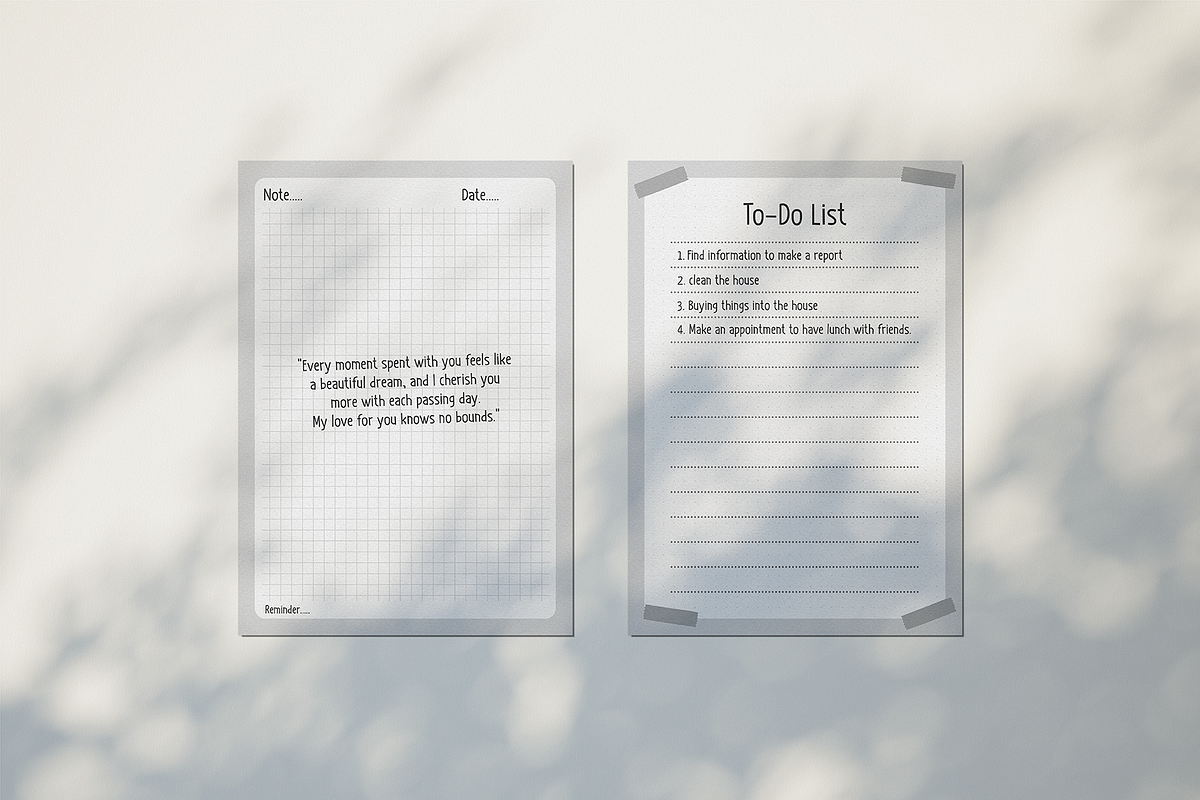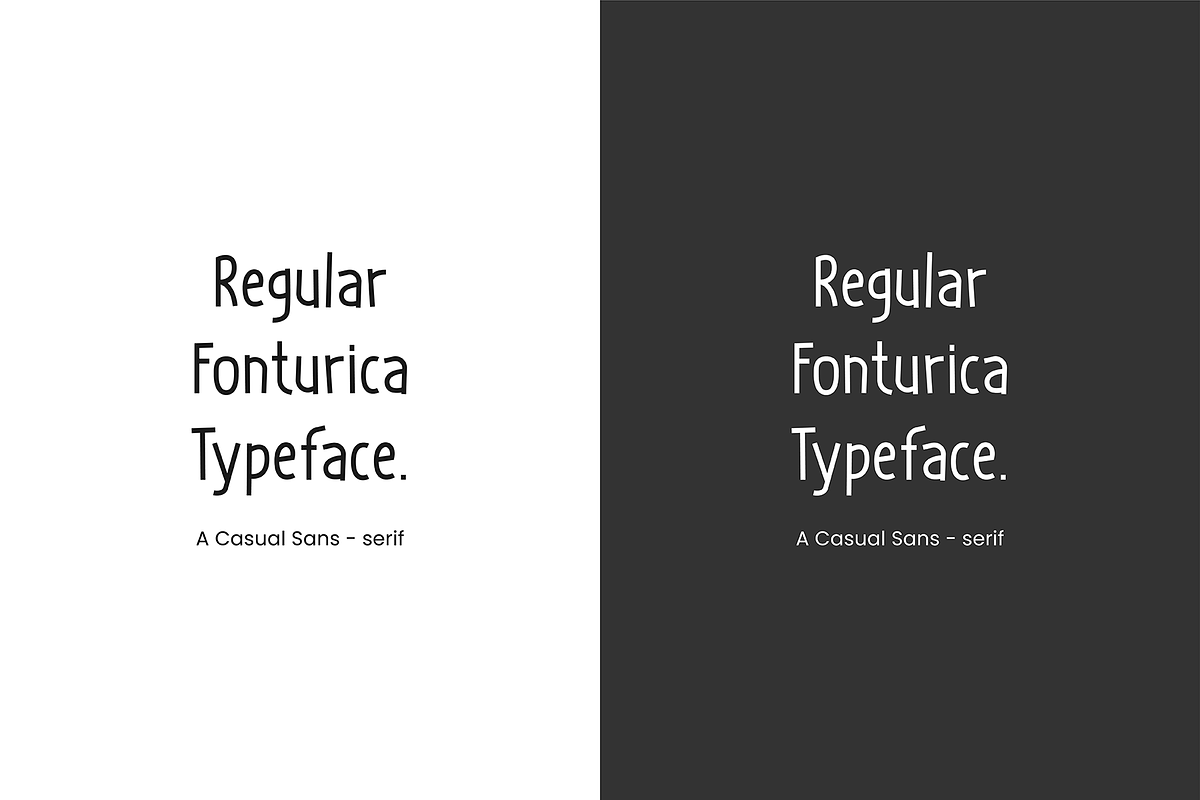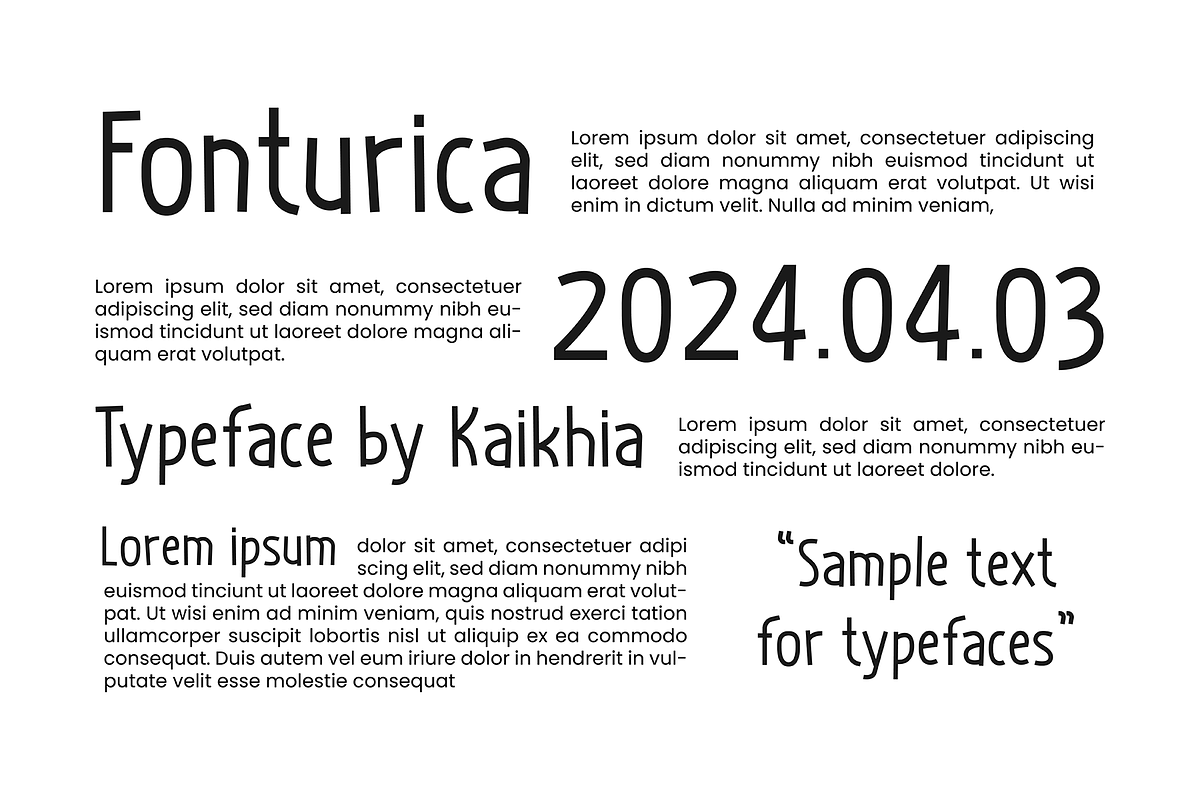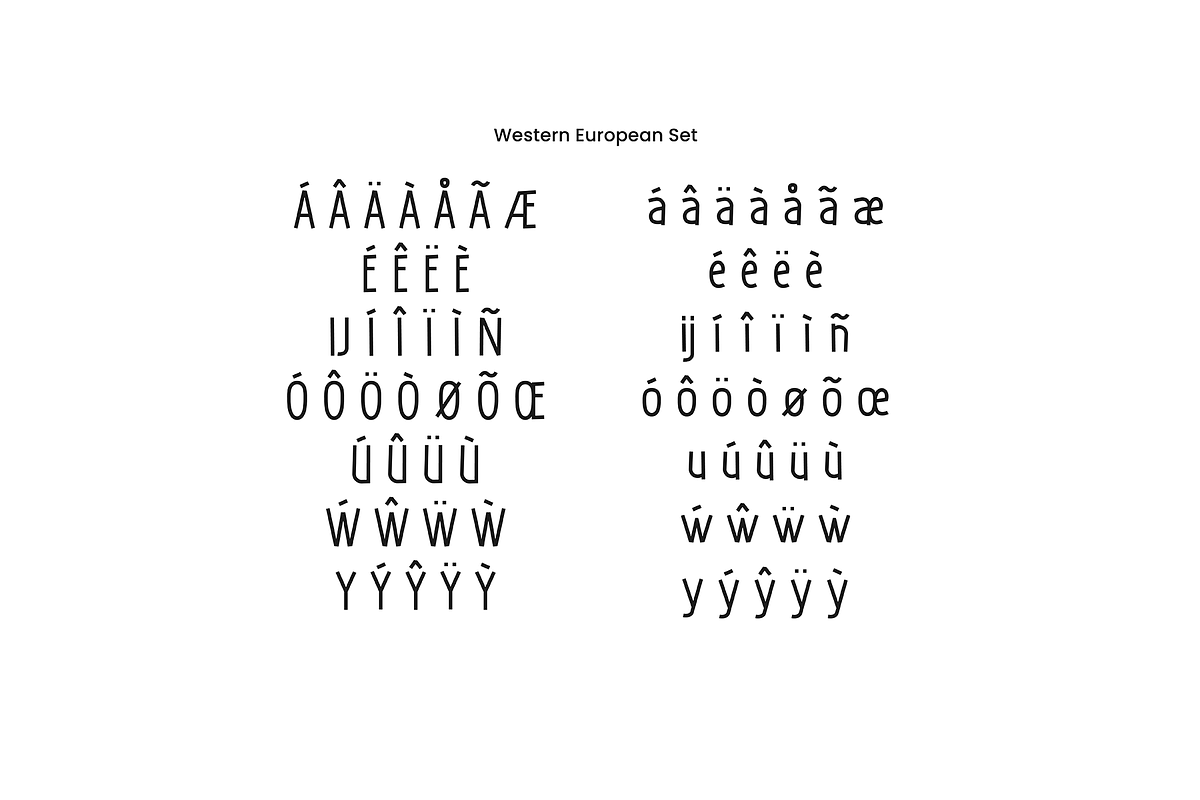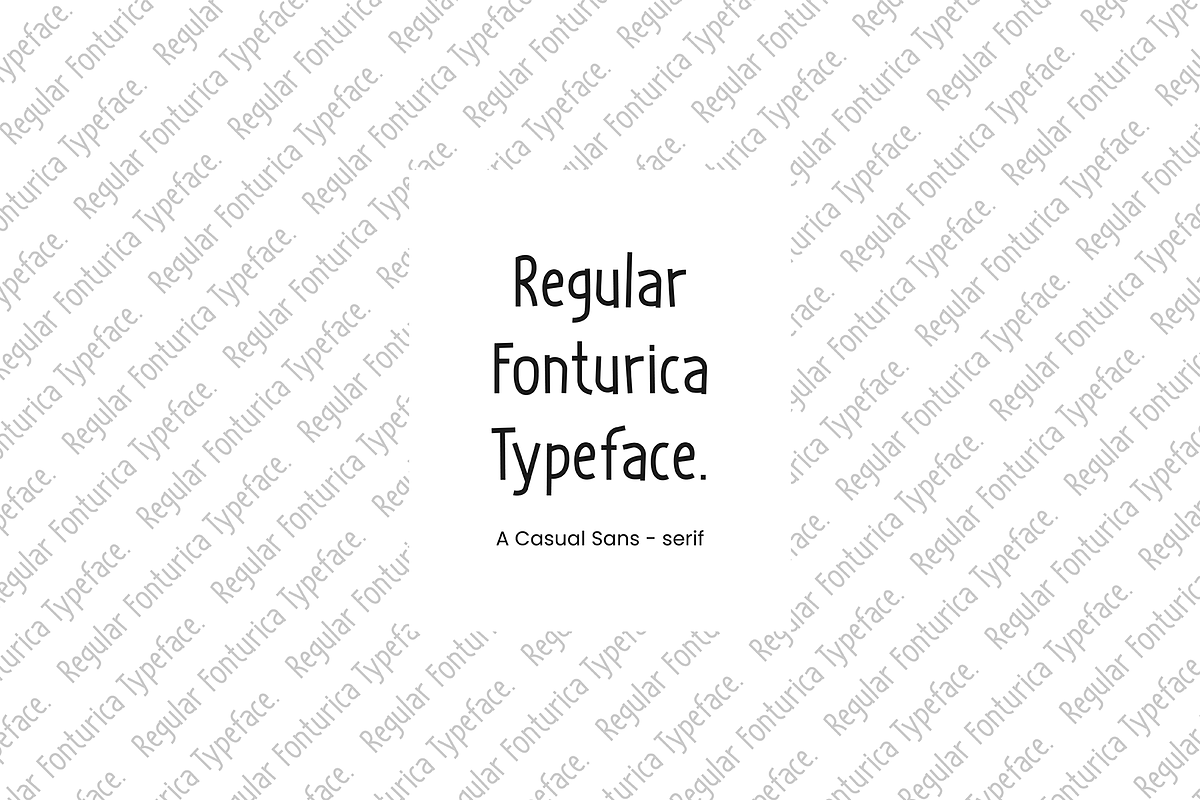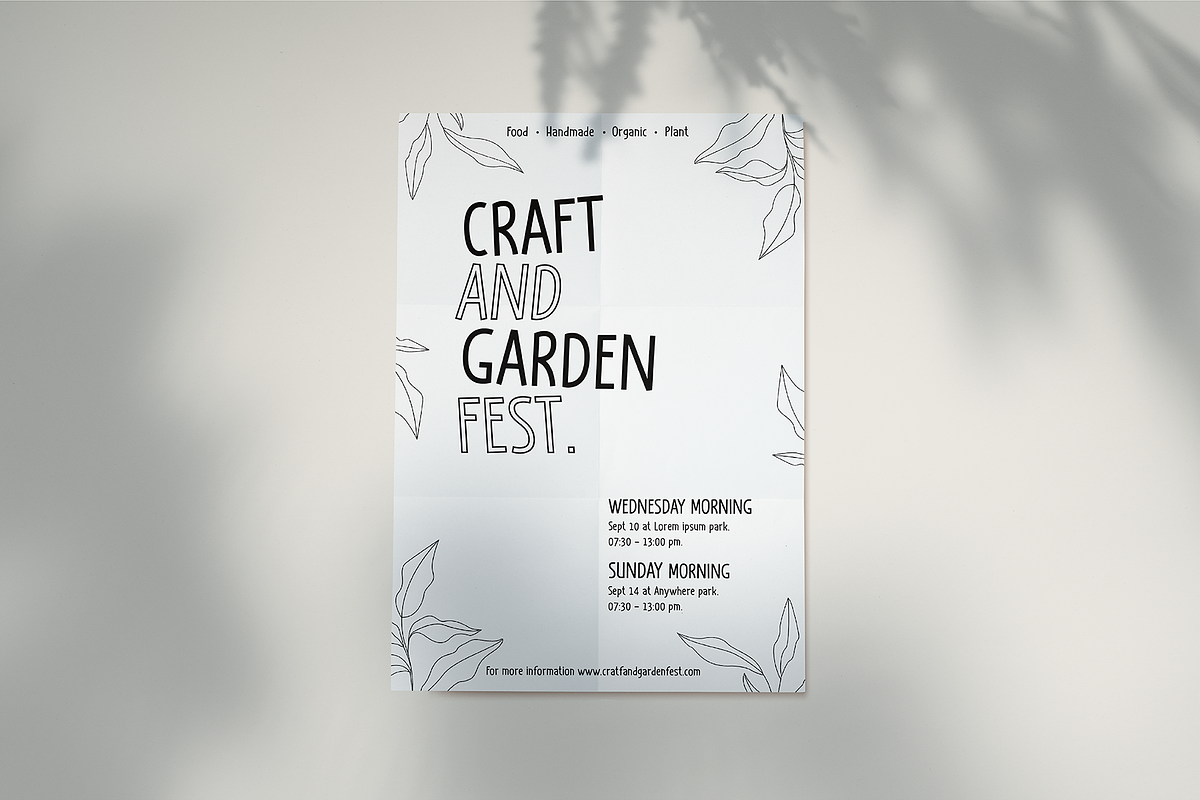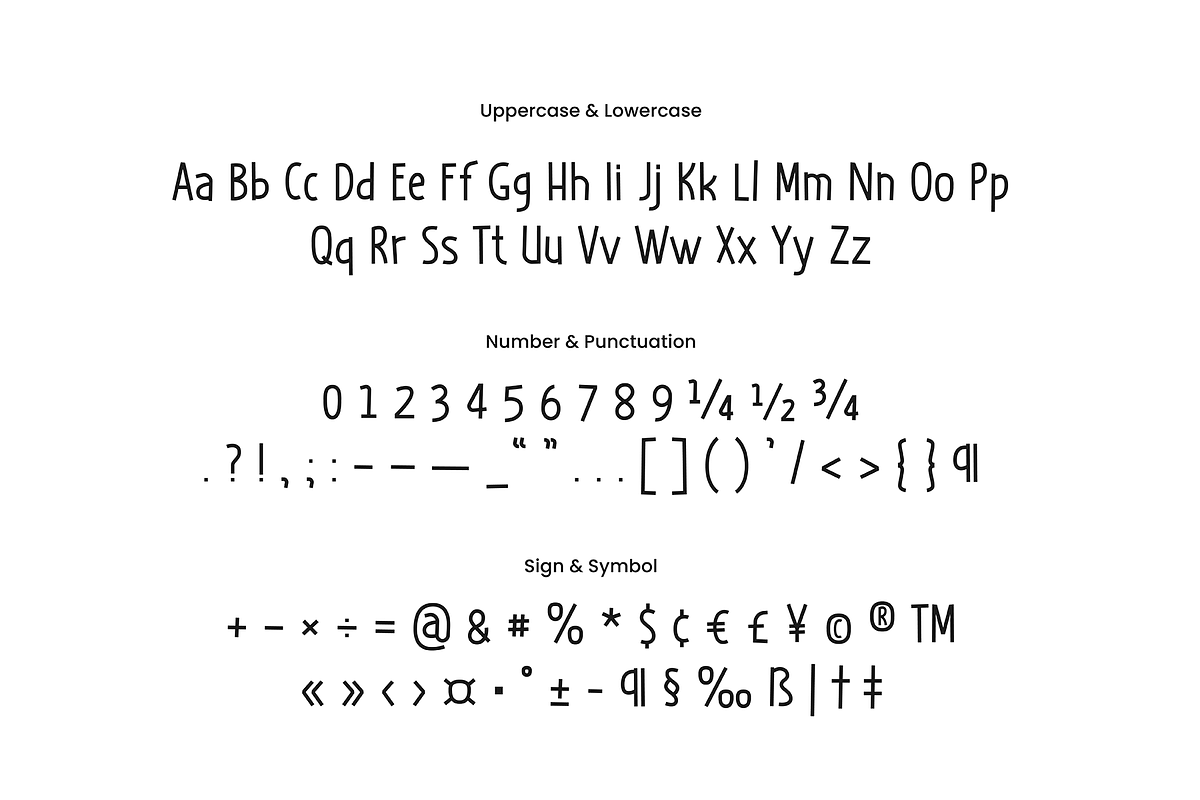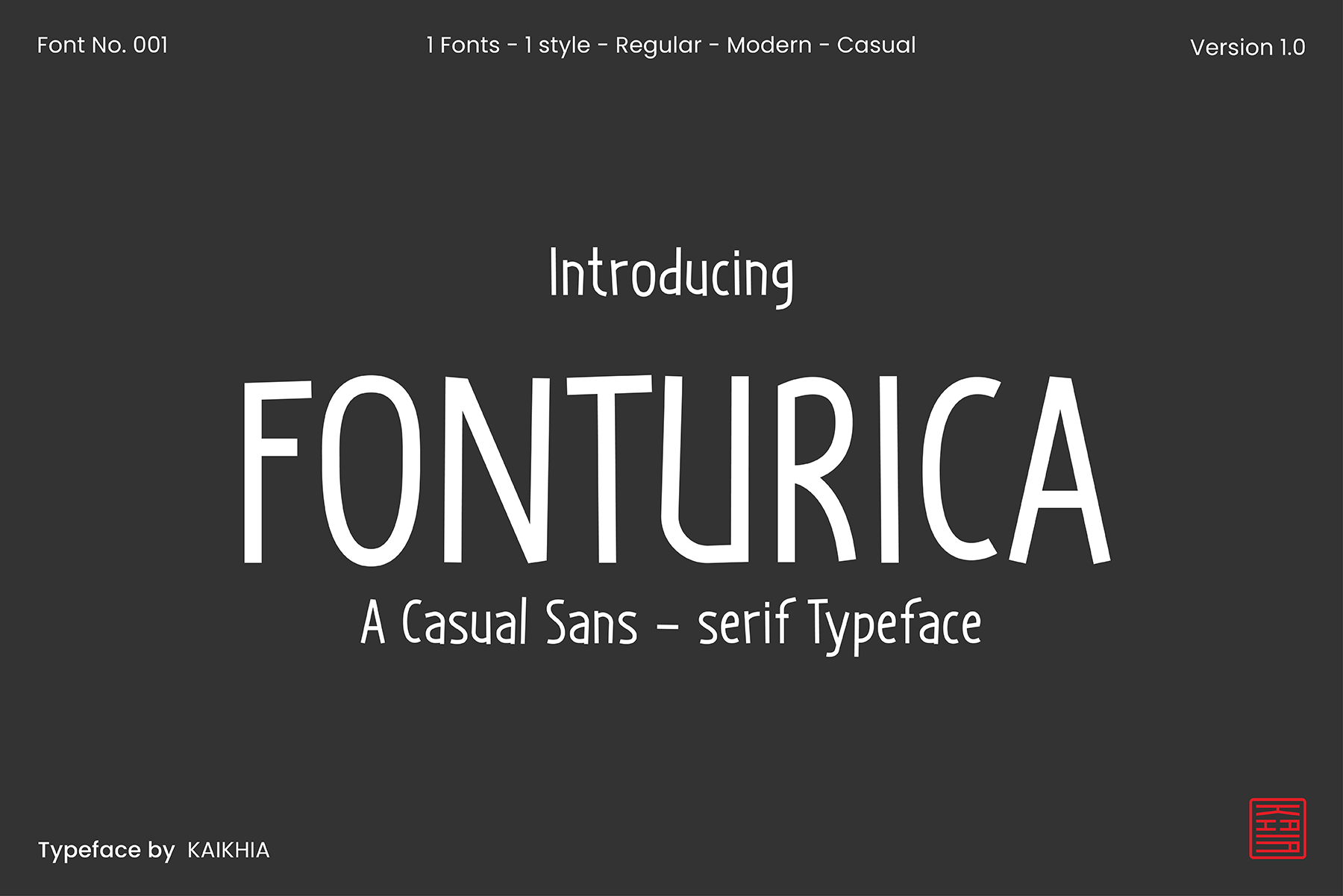
Fonturica, Modern Casual Font.
Introducing our new product the name is Fonturica Font. Fonturica provides a fun, contemporary, and authentic feel, easy to use and suitable for a variety of relaxed projects such as notebooks, posters, branding, logos, packaging, magazines, book covers, and more.